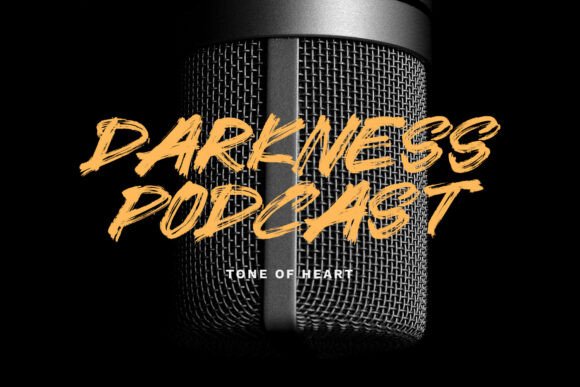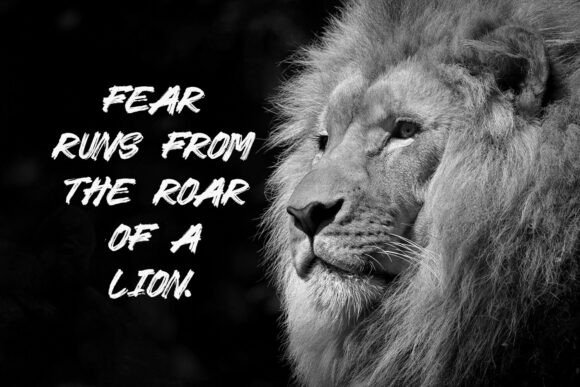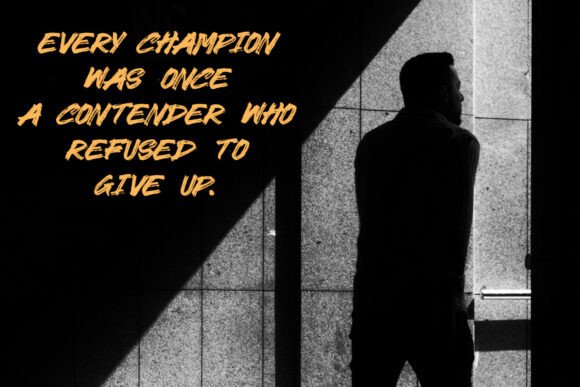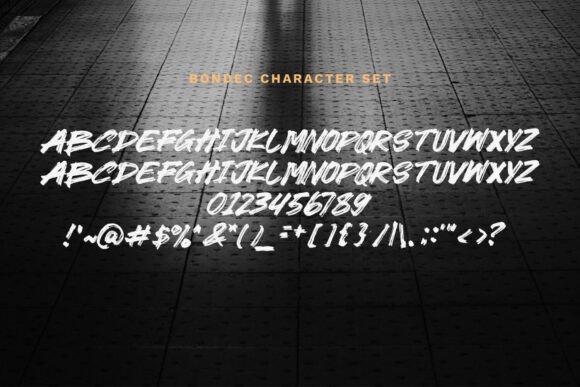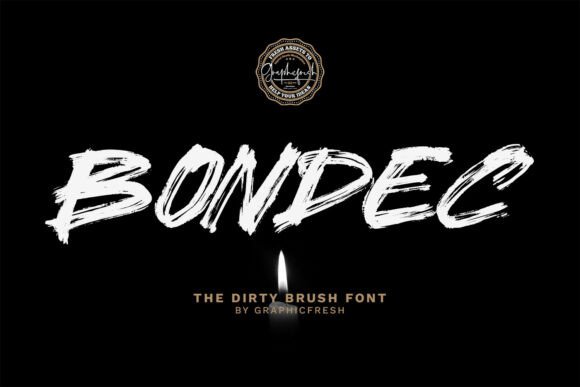
Introducing Bondec Font: Unleashing the Raw Energy of Hand-Painted Lettering
In the world of typography, few fonts manage to capture the essence of authentic hand-painted lettering. Bondec Font is one such unique typeface that embodies the raw energy and imperfect beauty of brush movement. This dirty brush font is built with rough strokes and bold textured characters, making it a powerful tool for designers and crafters looking to add a rebellious touch to their projects.
The Inspiration Behind Bondec Font
Bondec Font draws inspiration from the authentic hand-painted lettering often seen in street art, graffiti, and traditional sign-making. The font’s creator aimed to capture the dynamic and expressive nature of brush lettering, translating it into a digital format that can be used across various mediums. The result is a font that exudes a sense of ruggedness and character, perfect for projects that require a bold and attention-grabbing aesthetic.
Key Features of Bondec Font
So, what sets Bondec Font apart from other typefaces? Here are some of its key features:
- Rough Strokes and Textured Characters: Bondec Font boasts rough, uneven strokes that give it a hand-painted feel. The textured characters add depth and visual interest, making the font perfect for headlines, titles, and short paragraphs.
- Bold and Expressive Forms: The font’s bold and expressive forms create a powerful visual presence, making it ideal for designs that require a strong statement.
- Rugged Edges: The rugged edges of Bondec Font add to its rebellious and edgy feel, making it perfect for projects that require a bold and daring aesthetic.
- High Readability: Despite its rugged appearance, Bondec Font maintains solid readability, making it suitable for use in a variety of contexts, from digital designs to print materials.
Use Cases for Bondec Font
Bondec Font is a versatile typeface that can be used in a wide range of design projects. Here are some potential use cases:
- Branding and Logo Design: Bondec Font’s bold and expressive forms make it perfect for creating striking logos and brand identities.
- Streetwear and Fashion Design: The font’s rugged and edgy feel makes it a natural fit for streetwear and fashion designs.
- Graphic Design and Advertising: Bondec Font’s attention-grabbing aesthetic makes it ideal for use in graphic design and advertising projects.
- Sign-Making and Wayfinding: The font’s hand-painted feel and high readability make it suitable for use in sign-making and wayfinding projects.
Tips for Using Bondec Font Effectively
To get the most out of Bondec Font, here are some tips for using it effectively:
- Use it Boldly: Bondec Font is designed to make a statement, so don’t be afraid to use it boldly and prominently in your designs.
- Experiment with Colors: The font’s textured characters and rugged edges work well with a variety of colors, so experiment with different palettes to find the perfect combination.
- Mix it with Other Fonts: Bondec Font works well when paired with other fonts, so don’t be afraid to experiment with different combinations to create visual interest.
Bondec Font is a unique and powerful typeface that captures the raw energy and imperfect beauty of hand-painted lettering. With its rough strokes, bold textured characters, and rugged edges, this font is perfect for designers and crafters looking to add a rebellious touch to their projects. Whether you’re working on a branding project, designing a logo, or creating a bold statement piece, Bondec Font is sure to make a lasting impression.